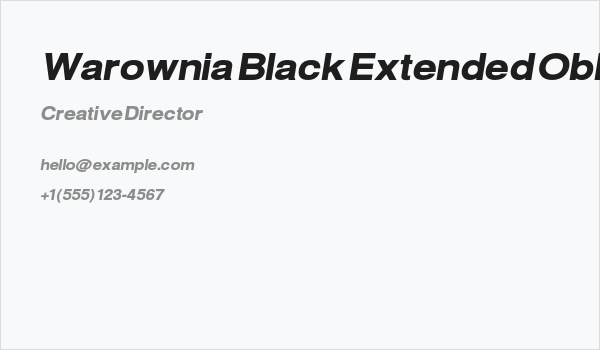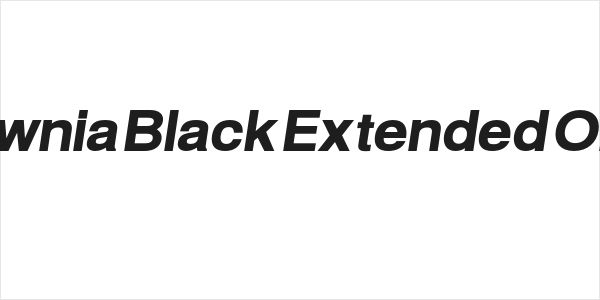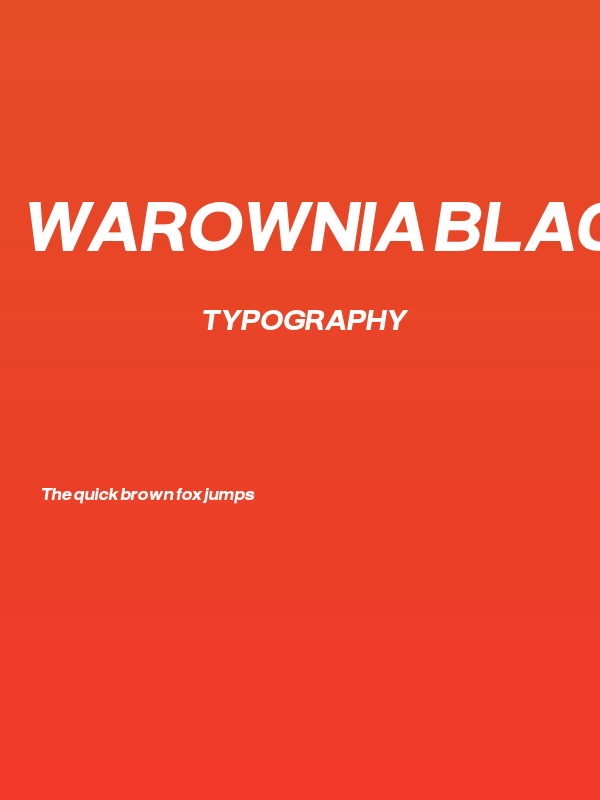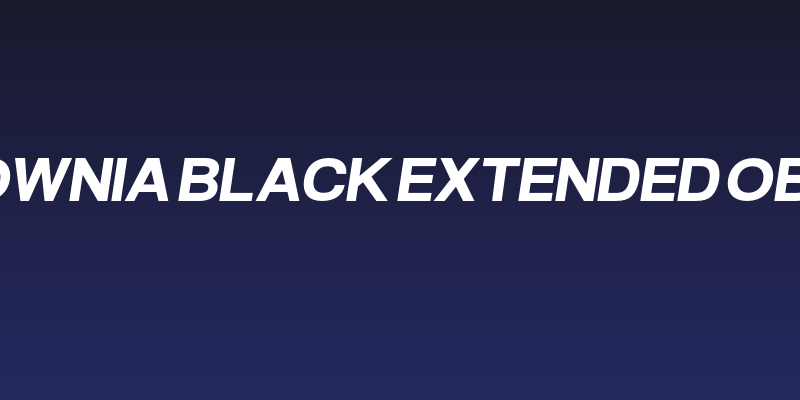
Warownia Black Extended Oblique Font
Warownia Black Extended Oblique Description
This font features a bold and extended style with an oblique slant, giving it a dynamic and modern appearance. The characters are wide, enhancing readability and making a strong visual impact. The uppercase and lowercase letters maintain a consistent weight, contributing to a cohesive look. The numerals and special characters are designed to match the boldness and slant of the alphabet, ensuring uniformity across all text elements. This font's extended width and oblique angle make it particularly suitable for attention-grabbing designs.
| Use Case | Headlines, Logos, Advertising |
| Proposed Projects | Ideal for branding, advertising, headlines, and any project requiring a strong visual impact. |